Combining typefaces is one of the most challenging skills for a designer to master. Setting two fonts together in the same design brings out unexpected flavors in them both. What’s more, there’s rarely a right or wrong answer.
There are dozens of different ways to combine typefaces, some more useful than others, but the most practical place to start is to understand the role of each typeface and to focus on its qualities.
How many fonts is too many fonts?
You rarely need more than one typeface. One is almost always adequate to create a hierarchy and convey your message.
In practical terms single typeface design is rare, if only because most designs feature a logo, and most logos feature text, and by its nature a typeface used for a logo will probably not work for body text. There is a rule of thumb that says that you shouldn’t use more than three typefaces in a single design, given that the logo uses one (or two!) typefaces, you’re probably restricted to two faces.
Normally, in order for our headings to stand out when the page is scanned, we use one typeface for body text and one for display. However, you can make headings stand out by using a bold variation, or an accent color, you don’t necessarily need an additional typeface for this.
Font files tend to clock in at around 65kb, if you’re using italic and weight variants then that’s almost 200kb of download added to your site. What’s worse are the additional http requests being made to the server.
So the answer is, the fewer fonts the better. Each typeface has to earn its keep, if you don’t have a good reason for using it, then don’t.
How to select a practical font
Frequently, your initial font choice is taken out of your hands; companies often specify a typeface, or even a set of fonts, as part of their brand guidelines. Occasionally you’ll find a job has specific requirements, such as limited room that might require a condensed face, or a lot of legal text that might require a face that’s highly legible at small sizes. However, if you find yourself with an entirely blank page, with unlimited options, the natural place to start is the largest proportion of text, and that is probably your body copy.
When selecting a typeface for body text, your primary concern should be readability. Don’t concern yourself with personality at this stage.
I’m of the school of thought that believes that you’re better off mastering a few typefaces that you know well and can rely on, than reinventing the wheel with every design. So I advocate having a few reliable choices that you can call on. My current go-to typefaces for body text (on Google fonts) are Droid Sans, Noto Serif, and Cabin.
How to select a personality font
Here’s where the craft comes in…
Selecting your first typeface for readability is usually a case of picking up a reliable tool, like an artist picking up a 2B pencil. However, when selecting a second typeface, there are two things to bear in mind:
Firstly, your second typeface is not selected for practicality, but for personality. And it’s vital to understand that it’s not just selected for its own personality, the second typeface draws out the personality of the first. All typefaces have a personality of some kind, most have numerous characteristics, such as feeling friendly, or ergonomic, or stoic. If two faces share the same characteristic, then when combined the characteristic will be multiplied.
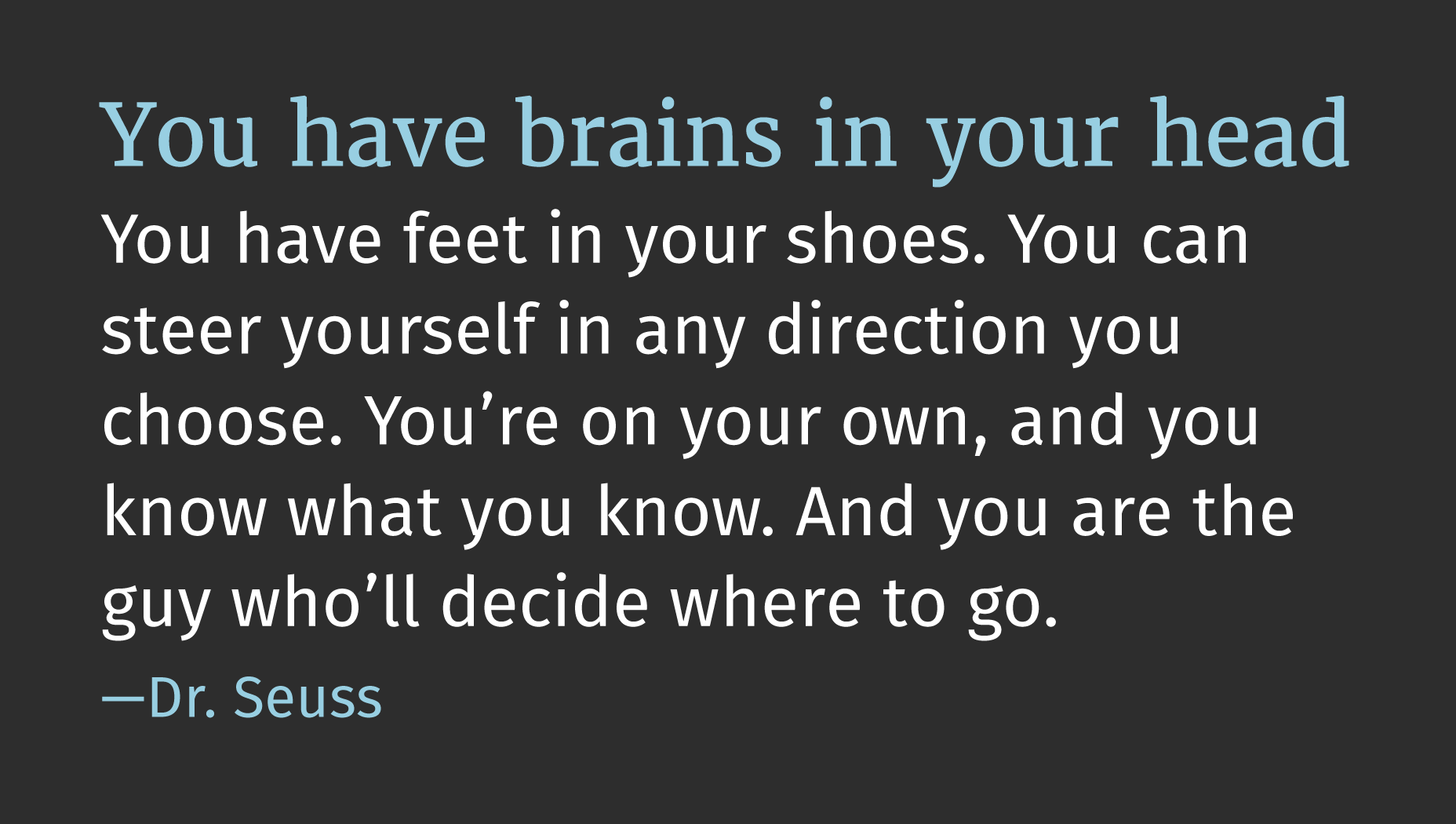
Secondly, your second typeface needs to look as though it is intended to work with the first, in order to create a consistent voice. Look for faces with similar proportions: the shape of the counters should be similar, the ratio of the x-height to the ascenders should similar.
With those two concerns in mind, you have three options for selecting a second typeface:
Option 1: The safe bet
Many typefaces are designed with a companion serif or sans-serif — Scala Sans has Scala Serif, Meta has Meta Serif. My favorite body font of the moment, Droid Sans, has Droid Serif.
The value of combining companion fonts is that the basic letterforms are usually identical. The degree of contrast is minimal, but sufficient to warrant the extra http request.
If you’re not super-confident in your ability to blend typefaces, then this is a really reliable option.
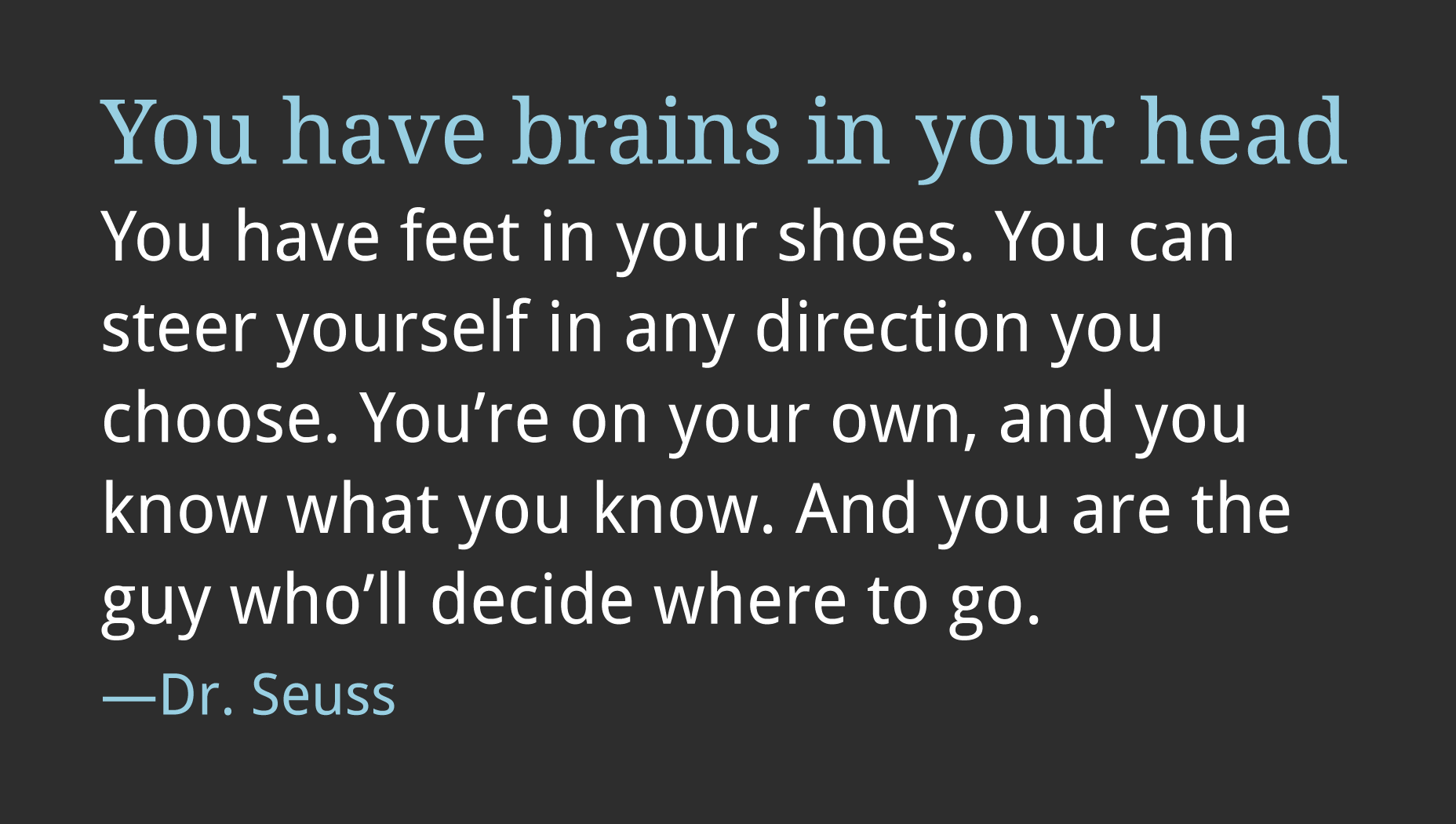
Companion typefaces Droid Sans and Droid Serif
Option 2: Contrasting a characteristic
If you’ve picked a highly legible body face, then perhaps you can pick a display face that isn’t. If you’ve picked a geometric body face, then consider a humanist display face. If your body face is warm and inviting, try a display face that is strong and aloof.
Noto Serif has nice round counters (the spaces in letters like ‘c’ and ‘o’) and the brackets on its serifs are equally nice and round. It’s open and friendly, it feels confident, and contemporary, with little expressive flairs. To contrast with that you might choose a typeface like Questa Sans. Questa Sans is also contemporary, also confident, also rounded. But Questa Sans doesn’t have expressive flairs, it’s far more matter-of-fact.
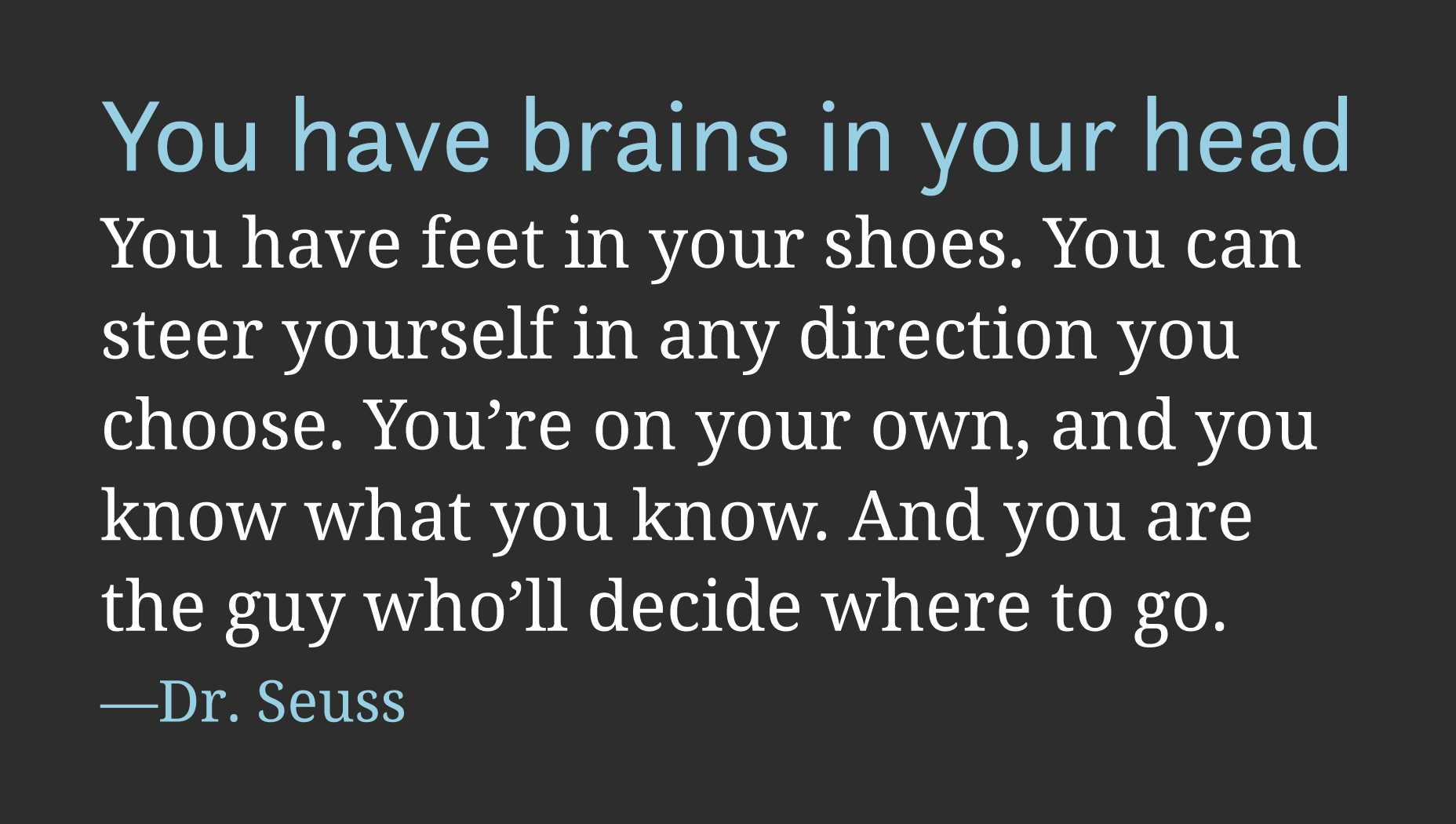
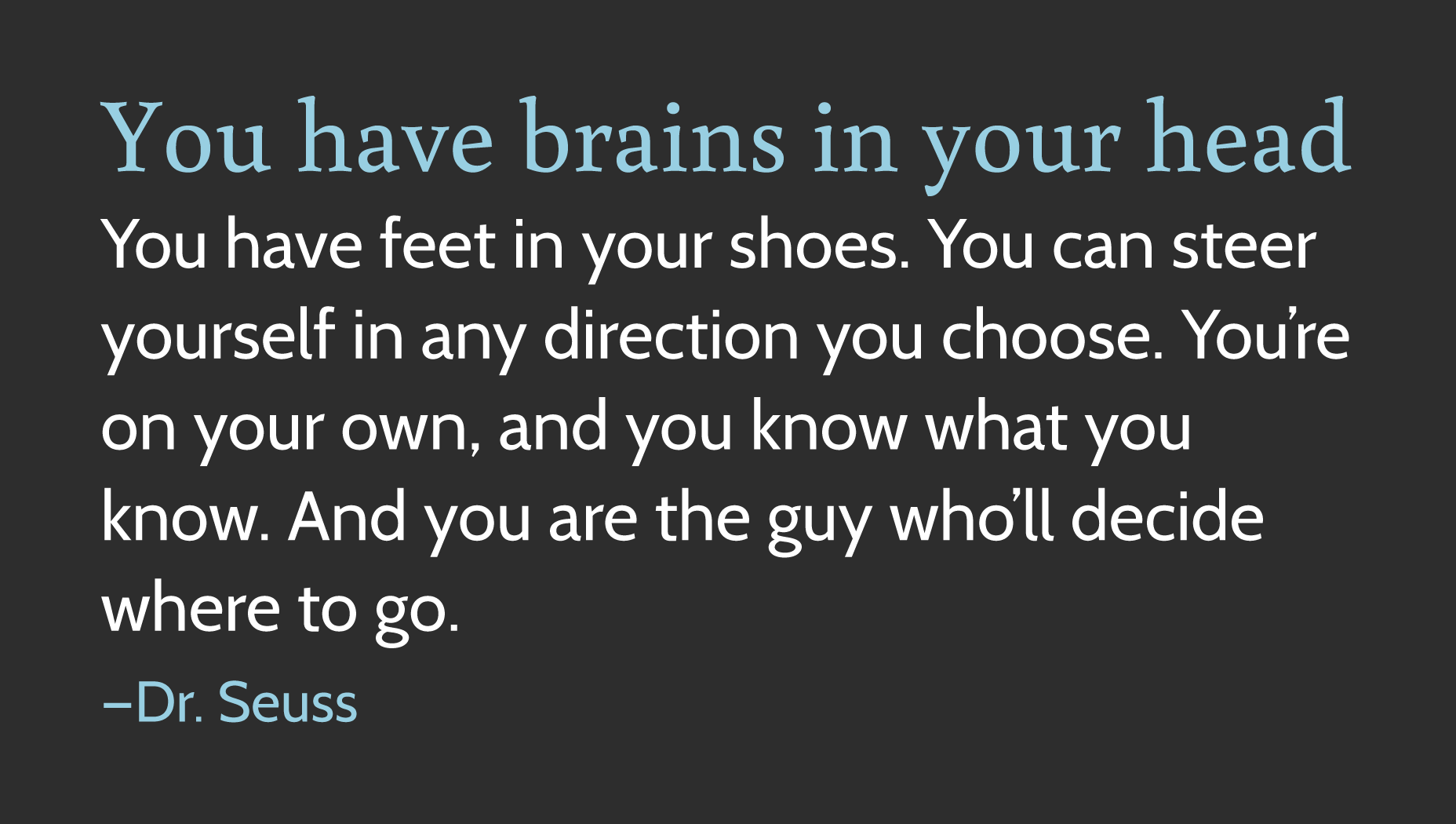
Typefaces with contrasting forms, Cabin and Buenard
Conclusion
Different typefaces, in different proportions, draw out different flavors in your designs. As with many things, restraint is often advisable because combining typefaces is an exponentially complex process.
How you choose to combine typefaces doesn’t really matter, what counts is the end result. However, it’s when you take risks, and look for unexpected pairings, that you’ll discover the most satisfying results.